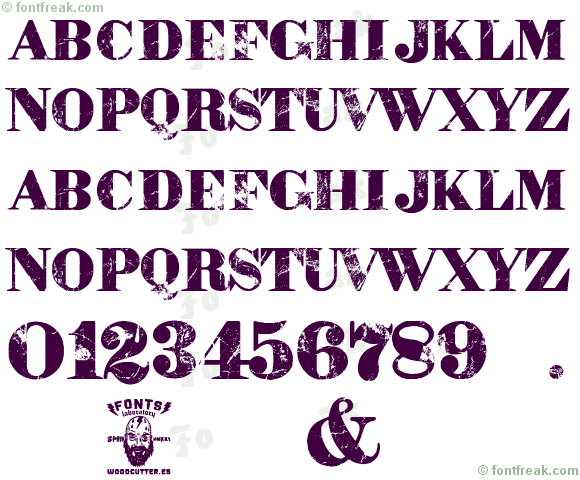
The Big Apple
The Big Apple font by woodcutter Manero is a striking display typeface that captures attention with its bold, vintage aesthetic. This freeware font is characterized by its strong, chunky letterforms that feature a textured finish, reminiscent of classic signage. The uneven stroke weight adds a sense of dynamism, while the high contrast between thick and thin elements gives it a visually engaging presence. The spacing is wide, allowing for easy readability, making it suitable for various applications.
This font is ideal for a range of creative projects. Its robust character makes it perfect for eye-catching movie posters, where it can convey excitement and drama. Additionally, The Big Apple font shines in restaurant menus, where its boldness can highlight special dishes and create a memorable dining experience. It is also a fantastic choice for urban-themed event invitations, such as music festivals or art shows, providing an authentic, gritty feel. Small business owners looking to create distinctive branding will find that this font can effectively convey a strong identity, making it a versatile option for logos and promotional materials.
Targeted toward graphic designers, small business owners, and content creators, The Big Apple font stands out for its unique personality and versatility. Its ability to blend classic charm with modern sensibilities makes it appealing for both traditional and contemporary design projects. The Big Apple font free download is an excellent opportunity to enhance your creative toolkit without any cost, allowing you to bring your designs to life with a touch of urban flair. Its distinctive style ensures that your work will leave a lasting impression, setting it apart in a crowded marketplace.